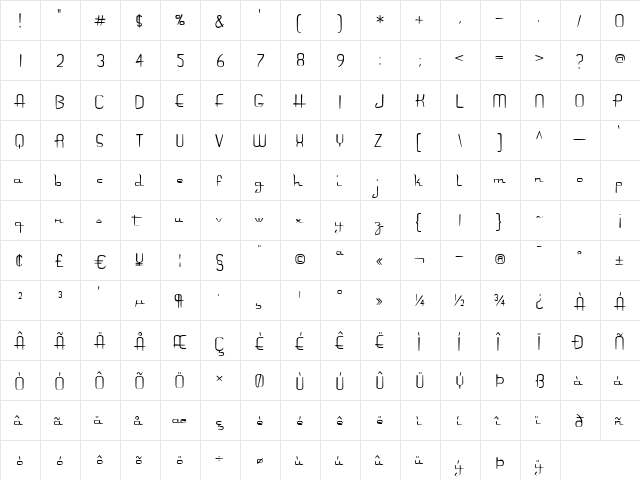
AlsMotorInn Regular
Design Context for AlsMotorInn Typeface
AlsMotorInn offers clean, dependable letterforms without strong stylistic allegiance, making it a practical choice for designers who need flexibility.